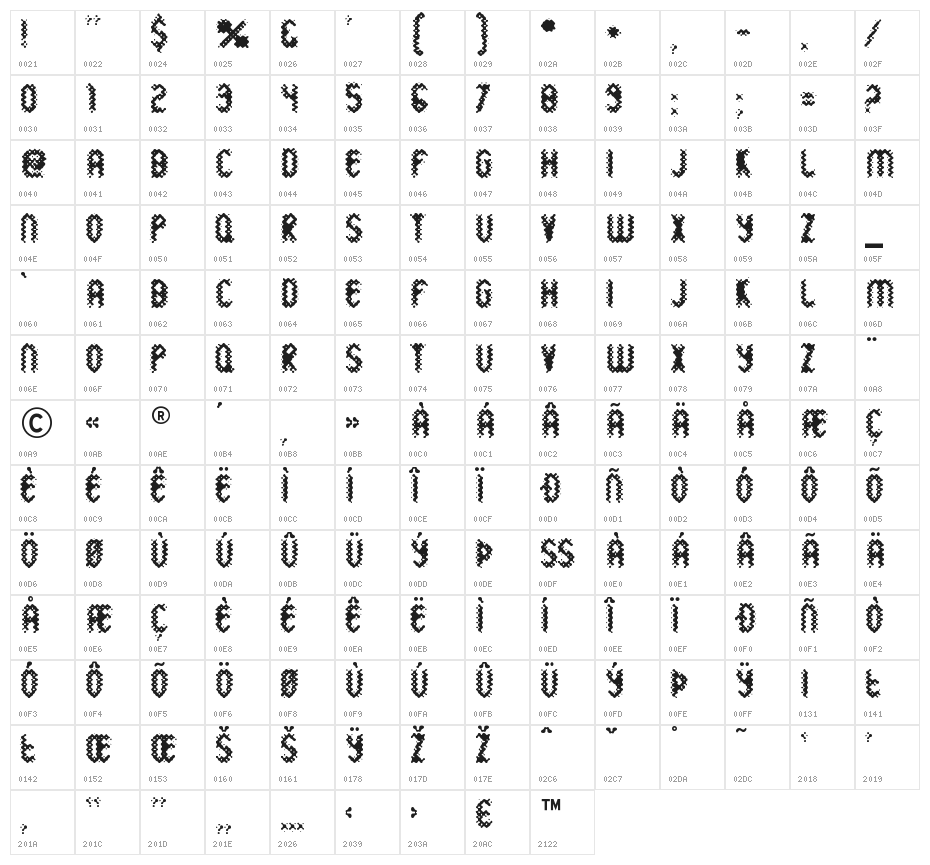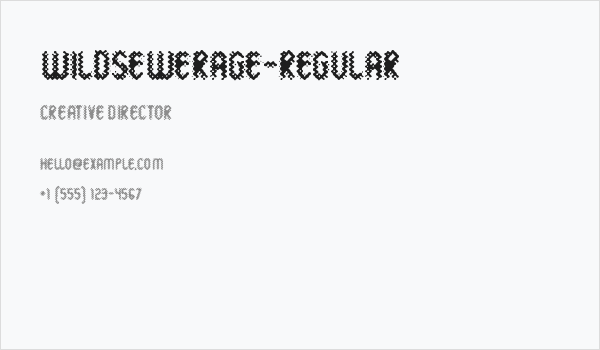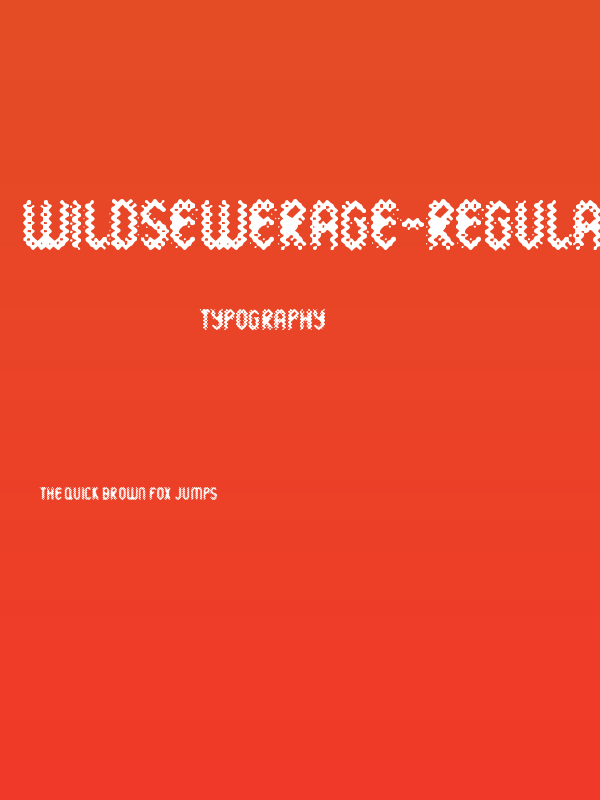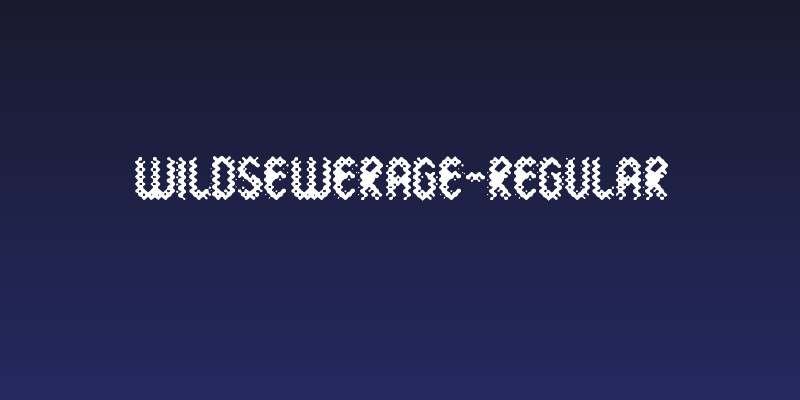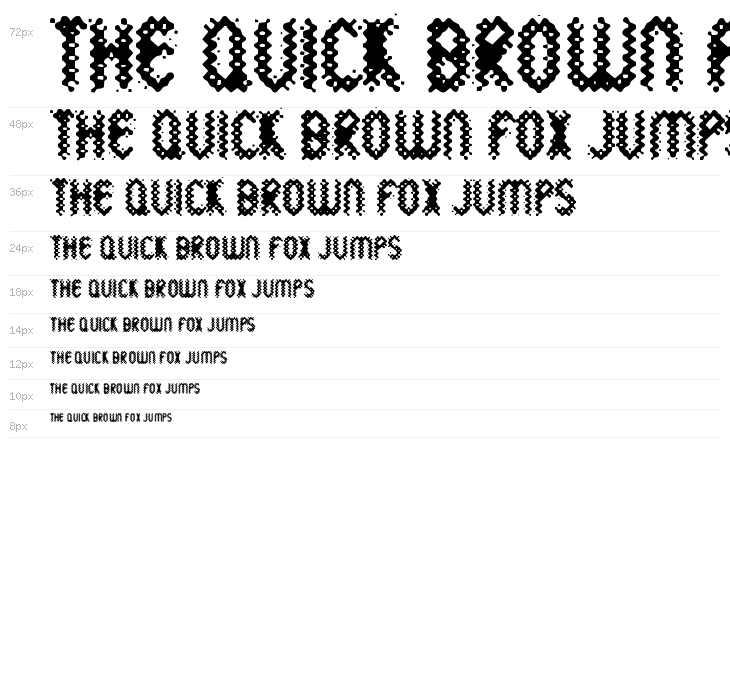
WildSewerage-Regular Font
WildSewerage-Regular Description
This font features a highly decorative and unique style, characterized by a bold, pixelated appearance. Each character is composed of small, square-like shapes that create a textured, almost digital look. The letters are uniformly bold, with a consistent thickness throughout, giving the font a strong presence. The design is playful and eye-catching, making it suitable for creative and unconventional projects. The uppercase and lowercase letters maintain a consistent style, while the numbers and special characters follow the same design principles, ensuring a cohesive look across all elements.
| Use Case | Logos, Posters, Digital Art |
| Proposed Projects | Ideal for video game graphics, digital art projects, posters, and any design requiring a bold, unconventional typeface. |